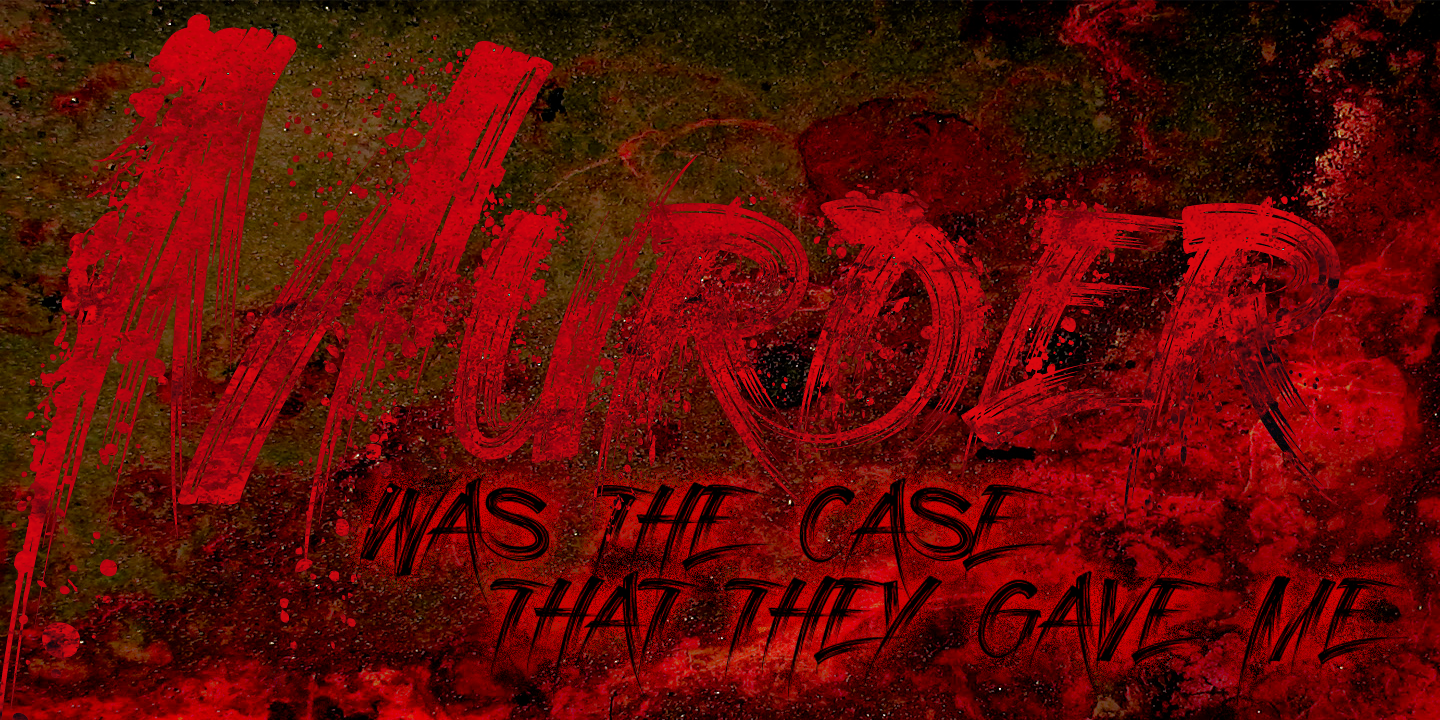
Strokes Font is perfect for artistic gallery exhibitions, creative studio branding, contemporary art magazines, modern architecture firms, design agency logos, abstract poster designs, innovative packaging solutions, artistic book covers, conceptual advertising campaigns, and cutting-edge digital interfaces.
What makes Strokes Font exciting is its bold artistic expression and dynamic visual impact that transforms typography into pure art. This striking typeface features distinctive brush-like strokes and gestural letterforms that capture the essence of artistic movement and creative energy. The font's expressive character creates powerful visual statements, making it essential for projects that demand attention and convey artistic sophistication and contemporary design thinking.
The Strokes Font family includes expressive artistic variations: Regular, Bold, Light, Condensed, Wide, and Textured versions. Each style maintains the core artistic aesthetic while providing different levels of visual drama and impact. The complete family offers designers comprehensive tools for creating memorable, art-inspired visual communications that stand out in today's competitive creative landscape.
For projects requiring artistic boldness and creative impact, Strokes Font Free Download delivers exceptional visual power. This remarkable typeface elevates ordinary text into extraordinary artistic expressions that communicate creativity and innovation. Its versatile nature makes it suitable for both digital art projects and high-end print applications across creative industries. Download Strokes Font today and transform your designs with this exceptional typeface that perfectly bridges the gap between typography and fine art expression.